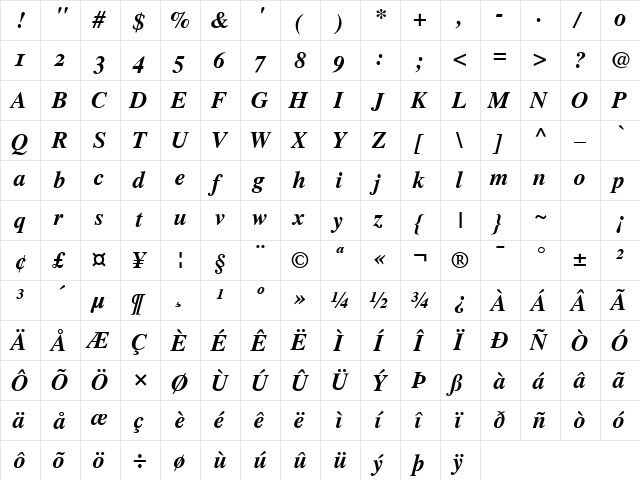
Greco OldStyle SSi Bold
Design Context for Greco OldStyle SSi Typeface
Greco OldStyle SSi carries the refined structure of traditional serif typography, with bracketed terminals and considered proportions that communicate credibility and craft. The heavy weight commands attention and anchors typographic hierarchies.